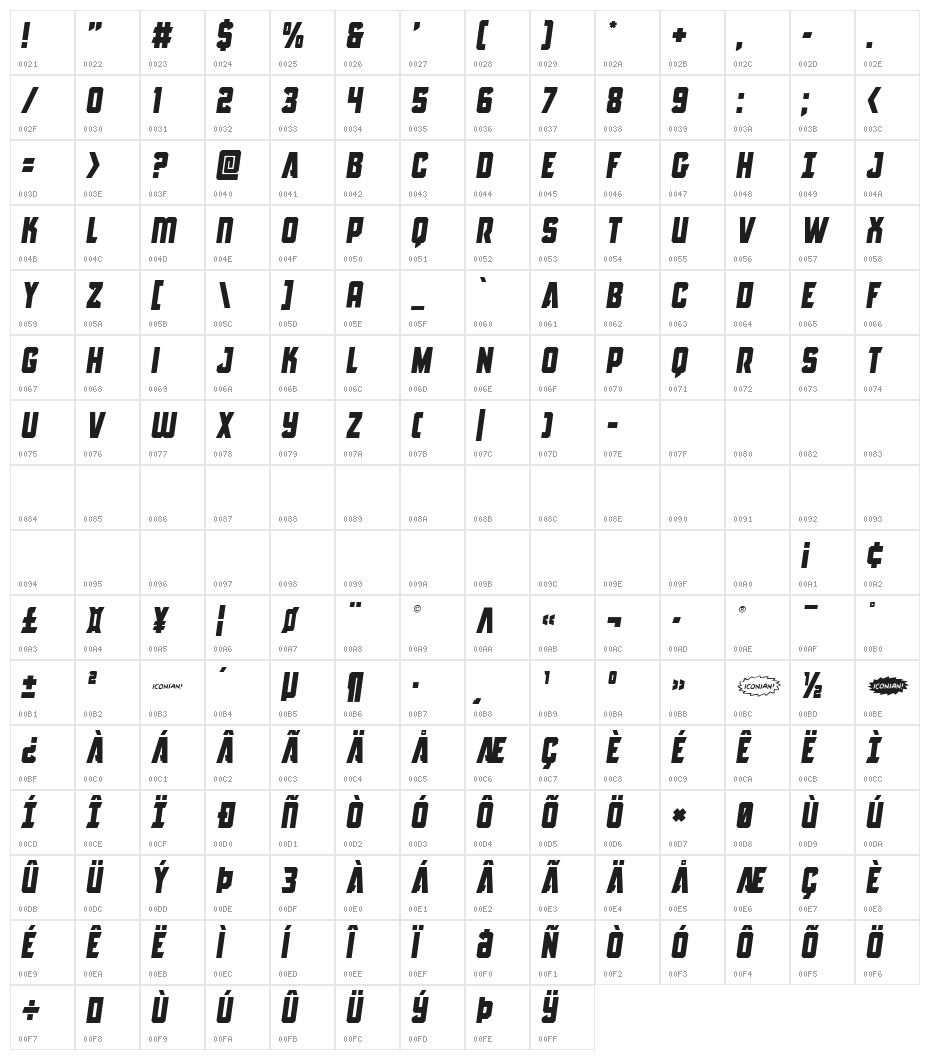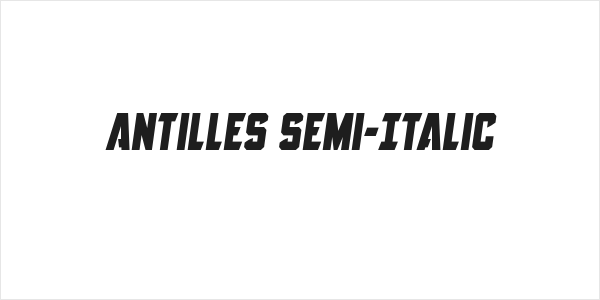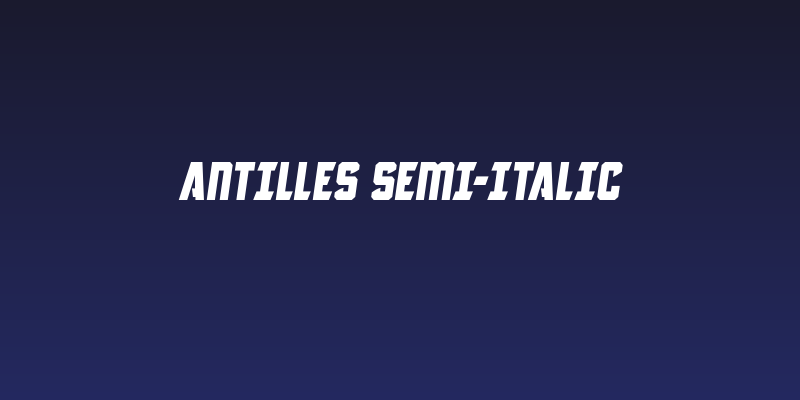
Antilles Semi-Italic Font
Antilles Semi-Italic Description
This font features a bold and dynamic style with sharp, angular edges and a slight italic slant, giving it a sense of motion and energy. The uppercase and lowercase letters maintain a consistent geometric structure, while the numbers and special characters complement the overall design with their robust and impactful appearance. The font's thick strokes and solid presence make it highly legible and attention-grabbing, suitable for various design applications that require a strong visual impact.
| Proposed Projects | Ideal for sports branding, action-themed posters, dynamic logos, and eye-catching headlines. |